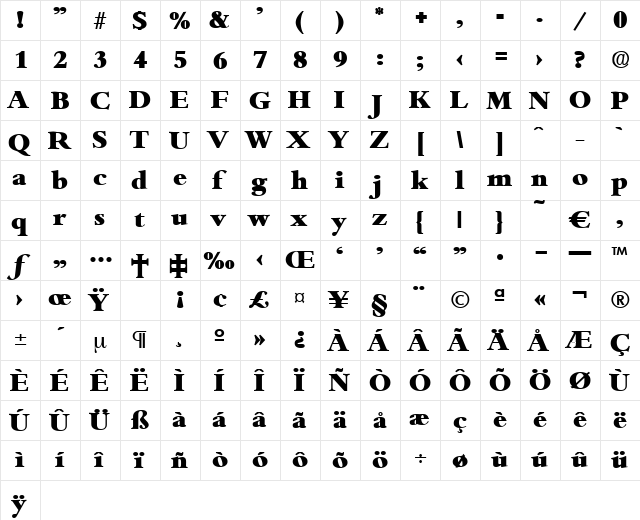
Bamberg-ExtraBold Regular
Design Context for Bamberg-ExtraBold Typeface
Bamberg-ExtraBold takes a measured approach to typography — its balanced proportions and neutral character make it a reliable workhorse for both digital and print work. Its bold stroke weight gives it real presence on the page.